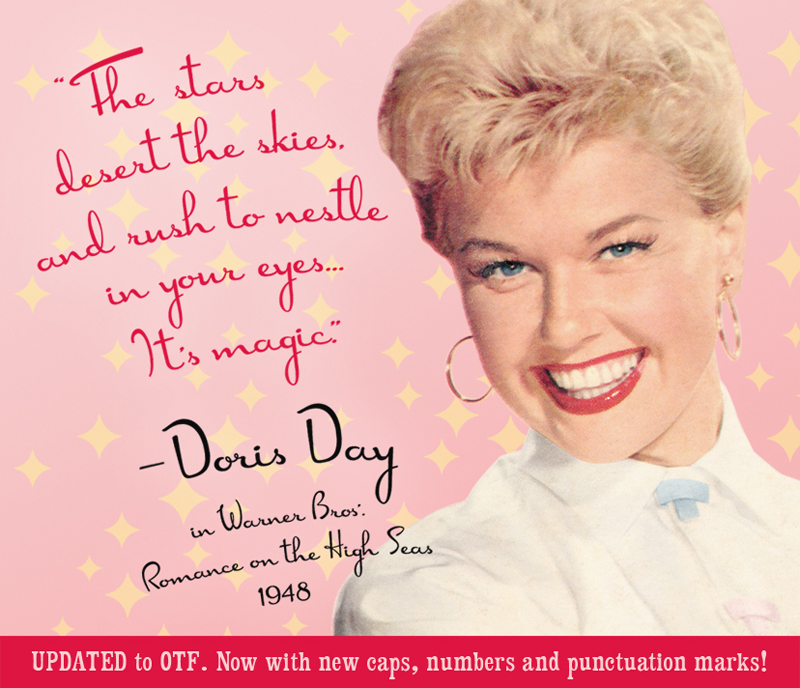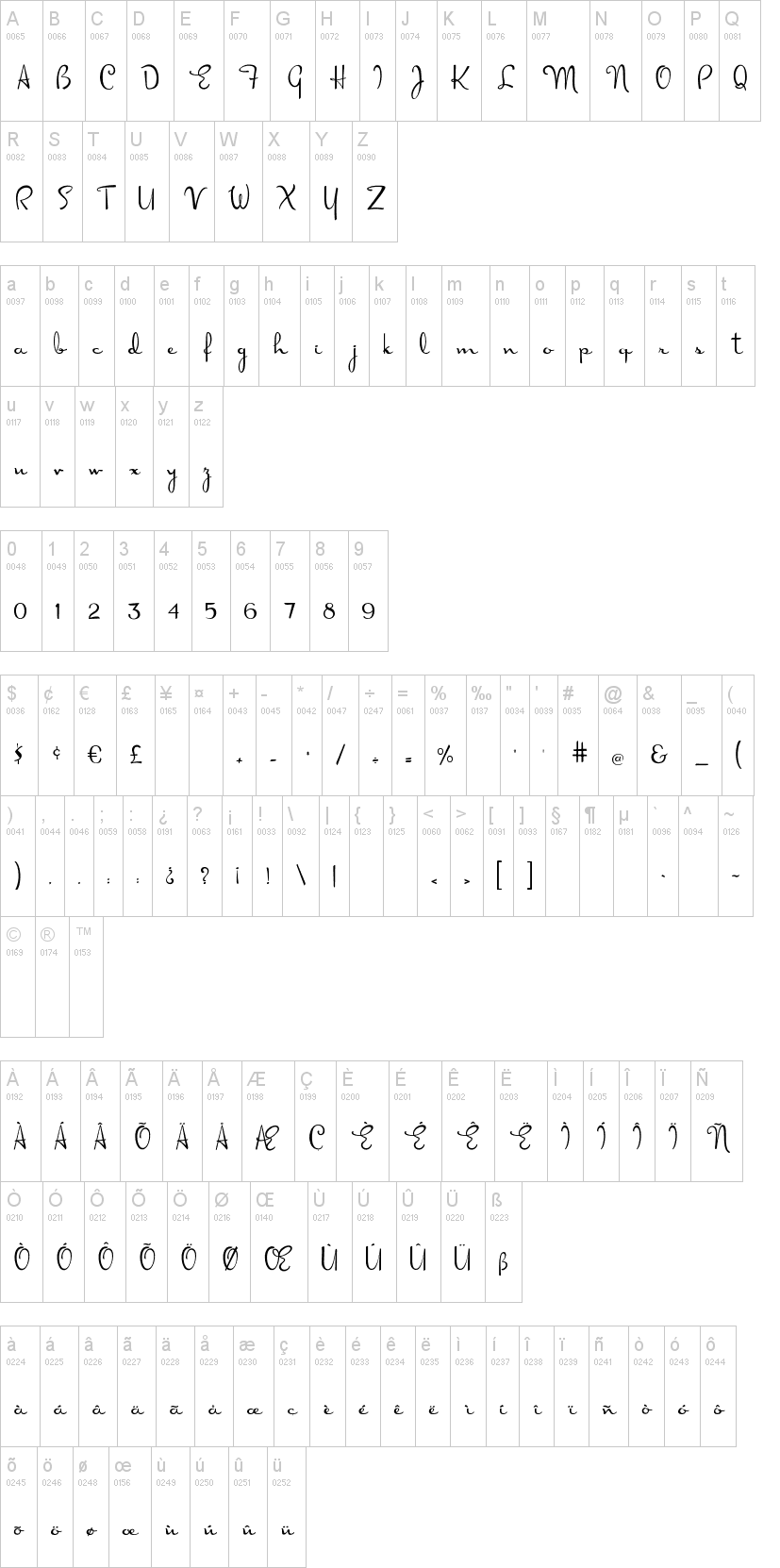
Note of the authorDorisDay font is pretty much a collage of letters that appeared in 1940's thru 60's magazine ads. DorisDay is Freeware for personal use. If it is for commercial use, then this font is Donationware through PayPal: turoturom@yahoo.es. If Euros is you local currency, please make your donation in Euros.